Fonts play an important role in every design. If you’re looking for a different type of a font to make your logo design stand out, a cursive font can be a great choice. In this collection, we’re featuring some of the most beautiful and modern cursive fonts you can use for your various types of logo designs. Keep browsing below and enjoy!
1. Raisahi
Raisahi script font font with new style, this font will perfect for many different project ex: quotes, logo, blog header, poster, banding, fashion, apparel, letter, invitation, stationery, etc…
2. Razan
3. Halisha
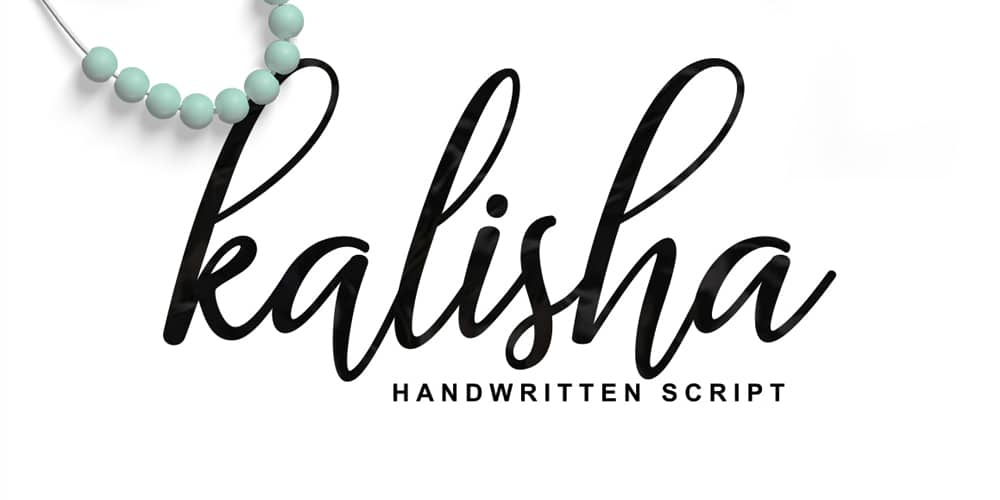
Perfect for adding some romance and charm to your designs. This script functions most strongly as a display or headline font. suitable for logo, logotype, branding, fashion, label, book cover, t-shirt, instagram post, and other!
4. Shavia
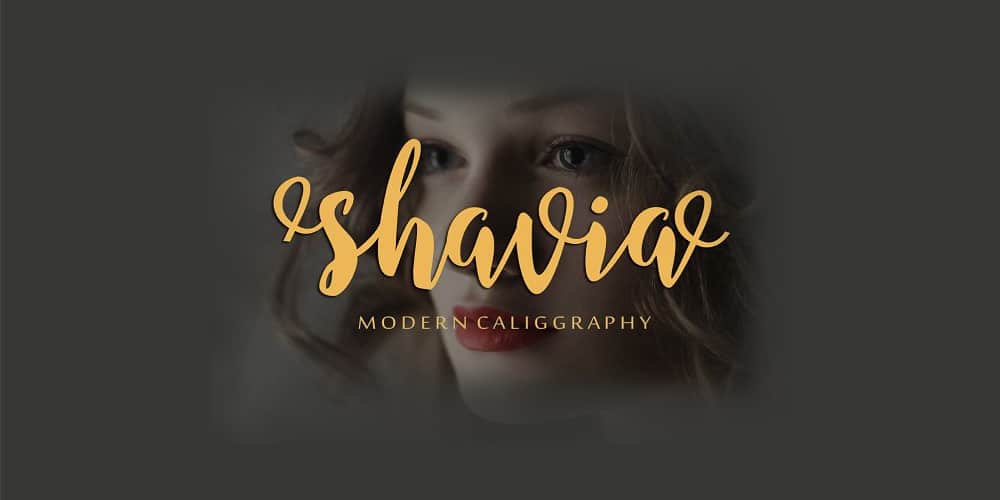
Shavia is a modern calligraphy, organic, dynamic and energetic sytle.Can used for various purposes. It works perfect in the world of weddings, logos, greeting cards, branding, print ads, quotes, signage, magazines etc.
5. Kadisoka
6. Railey
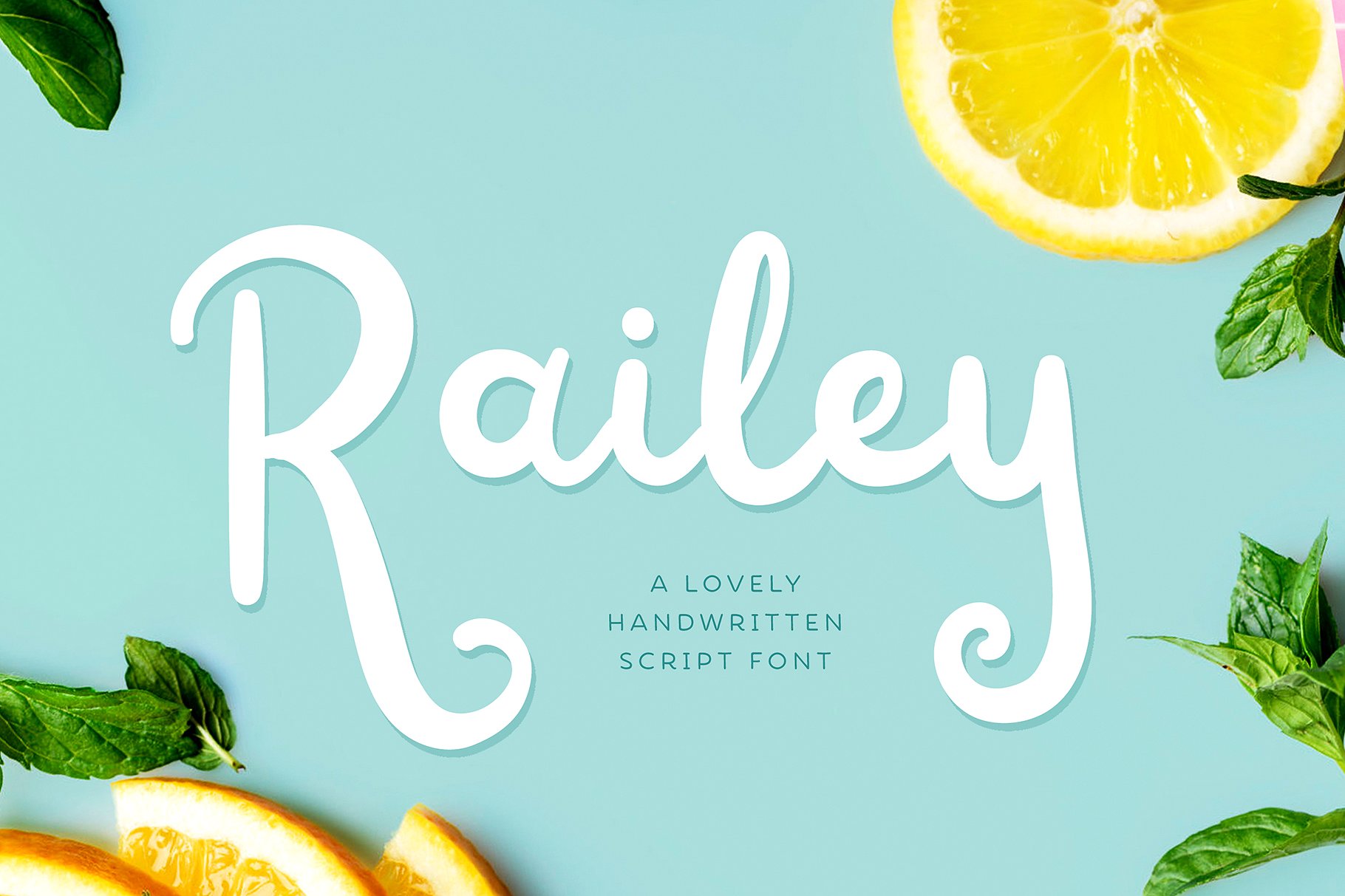
Railey is a lovely, modern handwritten font, perfect for any design & craft projects! Ideal for quotes, home decor, wedding invites, blog header, branding, t-shirts, posters & etc!
7. Monopola
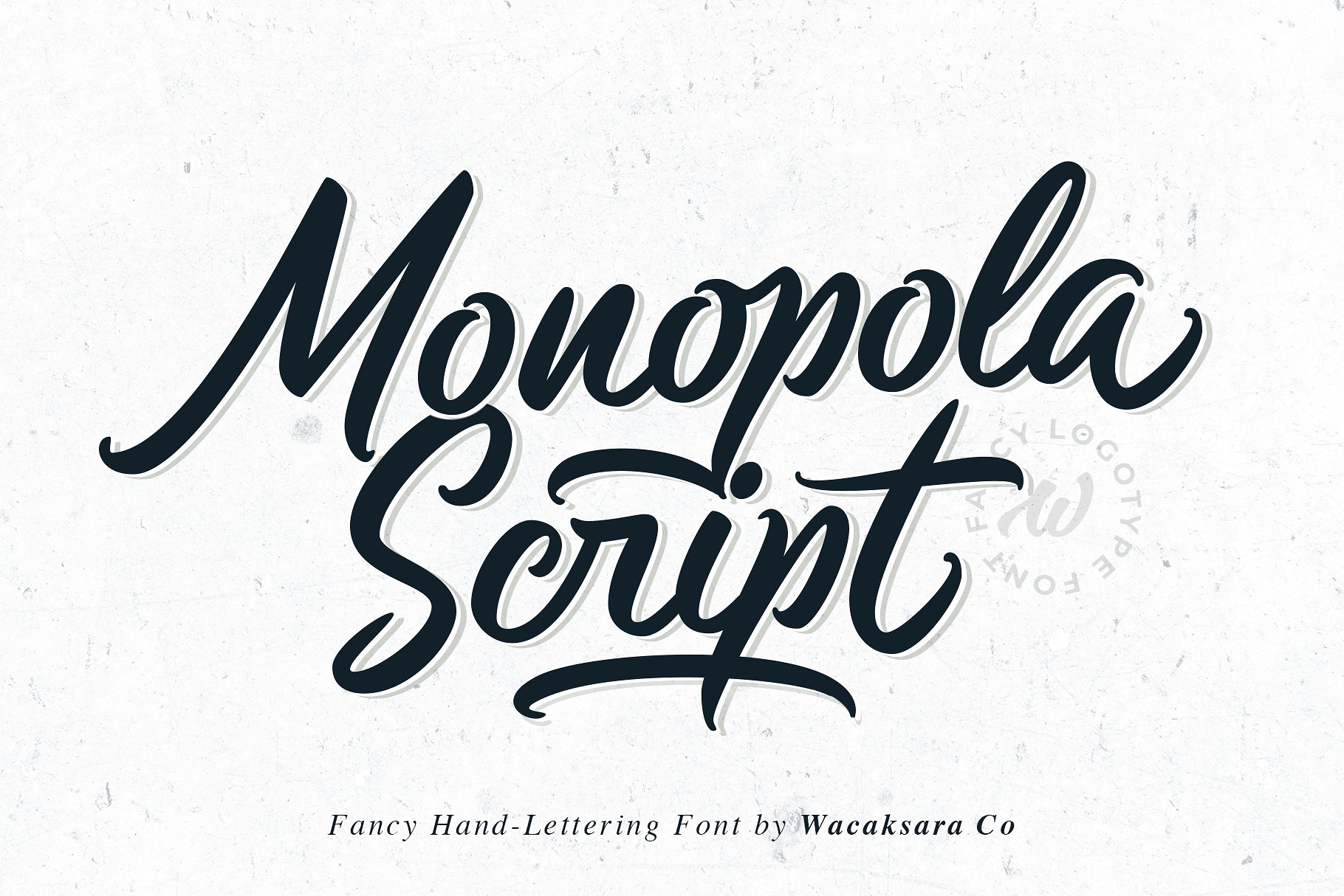
Monopola comes with uppercase, lowercase, numerals, punctuations and so many variations on each character include OpenType alternates, and common ligatures to let you customize your designs.
8. Habital
This font is ideal for branding and decorate your any project, are perfect for wedding invitation or your blog. Also with their help, you can create a logo or beautiful frame for your home. Or just use for your small business, book covers, stationery, marketing, magazines and more. Special for you I prepared a lot alternates and ligatures.
9. Chietah
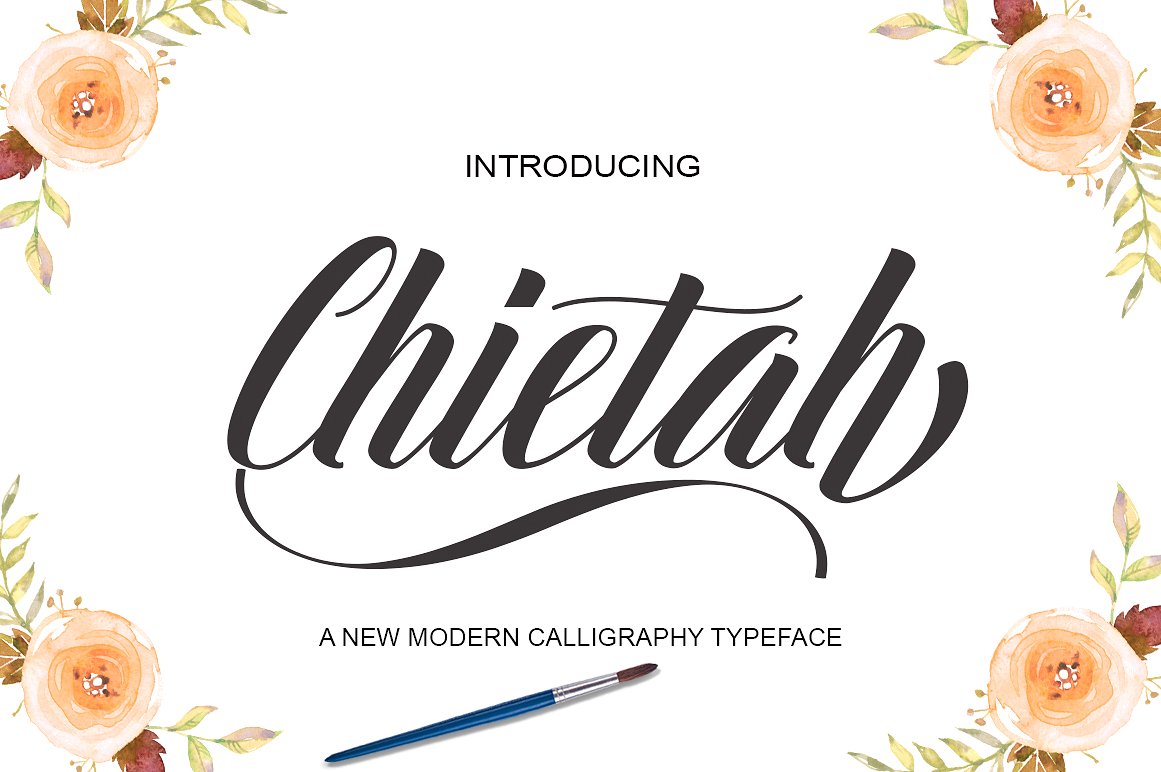
Chietah Script is a stylish calligraphy font that features a varying baseline, smooth line, classic and elegant touch. Can be used for various purposes.such as headings, signature, logos, wedding invitation, t-shirt, letterhead, signage, lable, news, posters, badges etc.
Chietah Script features 404 glyphs. including initial and terminal letters, alternates, ligatures and multiple language support.
10. Risthi
Risthi Script is handwritten stylish copperplate calligraphy fonts, combines from copperplate to contemporary typeface with a dancing baseline, classic and elegant touch. Can be used for various purposes.such as headings, signature, logos, wedding invitation, t-shirt, letterhead, signage, lable, news, posters, badges etc.
11. Briberra
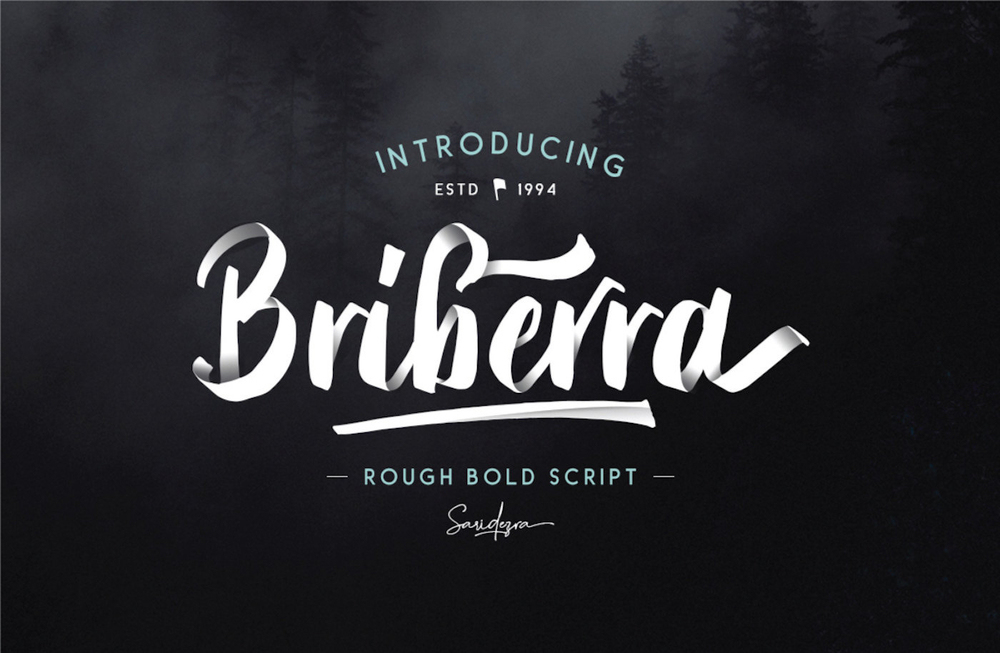
Briberra is hand lettering script font that contains stylistic alternates & swashes that will help to create your own customized designs. You can use this font for quotes, t-shirt designs, branding, plus plenty of other projects. This font contains multi lingual characters, supports PUA and is available in OTF and TTF formats.
12. Tahu
Introducing you to a clean and professional modern script font, Tahu! Use it for ads, logos, branding or anything that that you’ll need. This is free for commercial use so feel free to use it to prosper 🙂
13. Karl Geoff
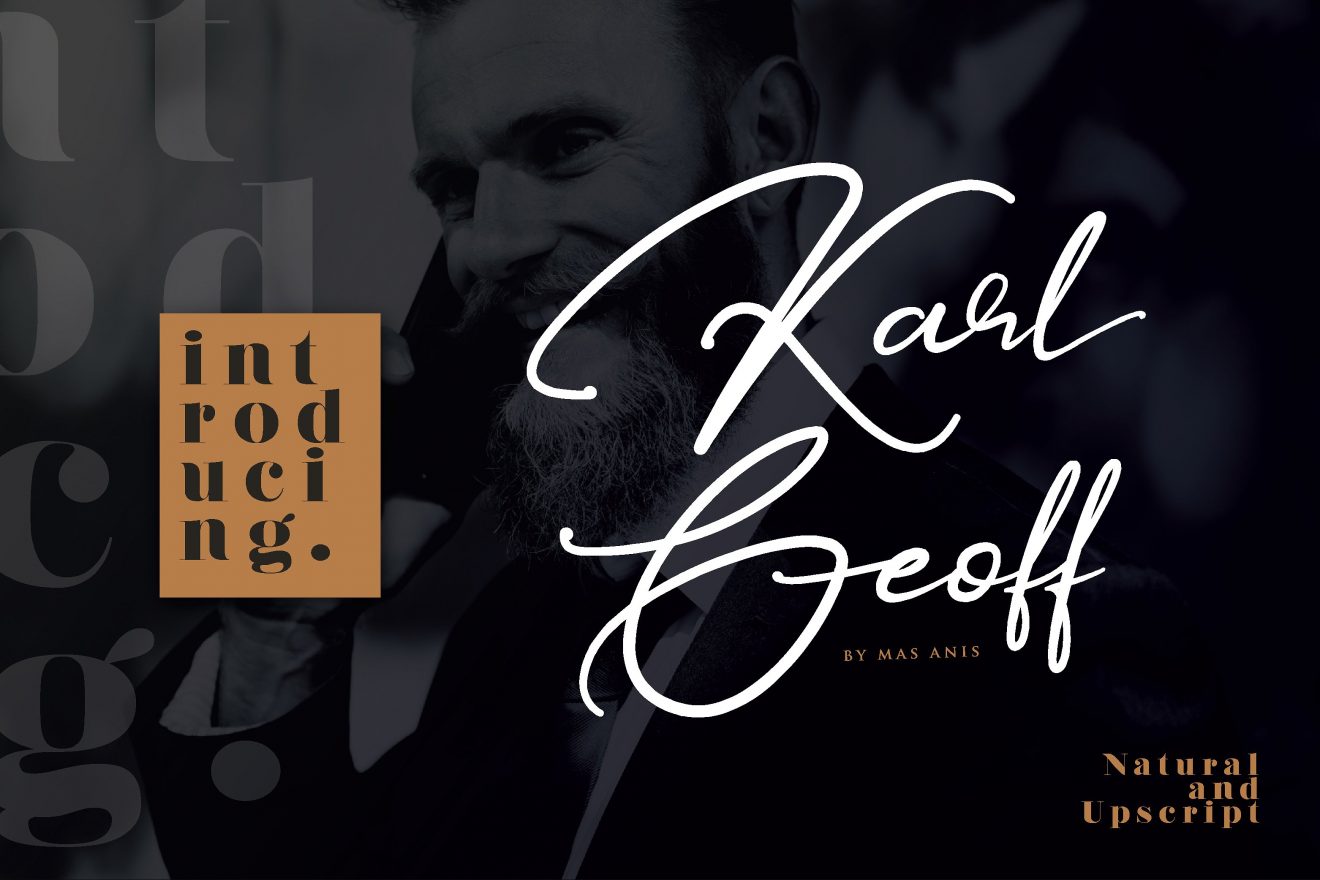
Karl Geoff is a unique and cool looking handwritten script, ideal for use in projects that need an organic and natural style. This font is great for logotype, signatures, labels, and can add an elegant and classy look to your work.
14. Hey Darling
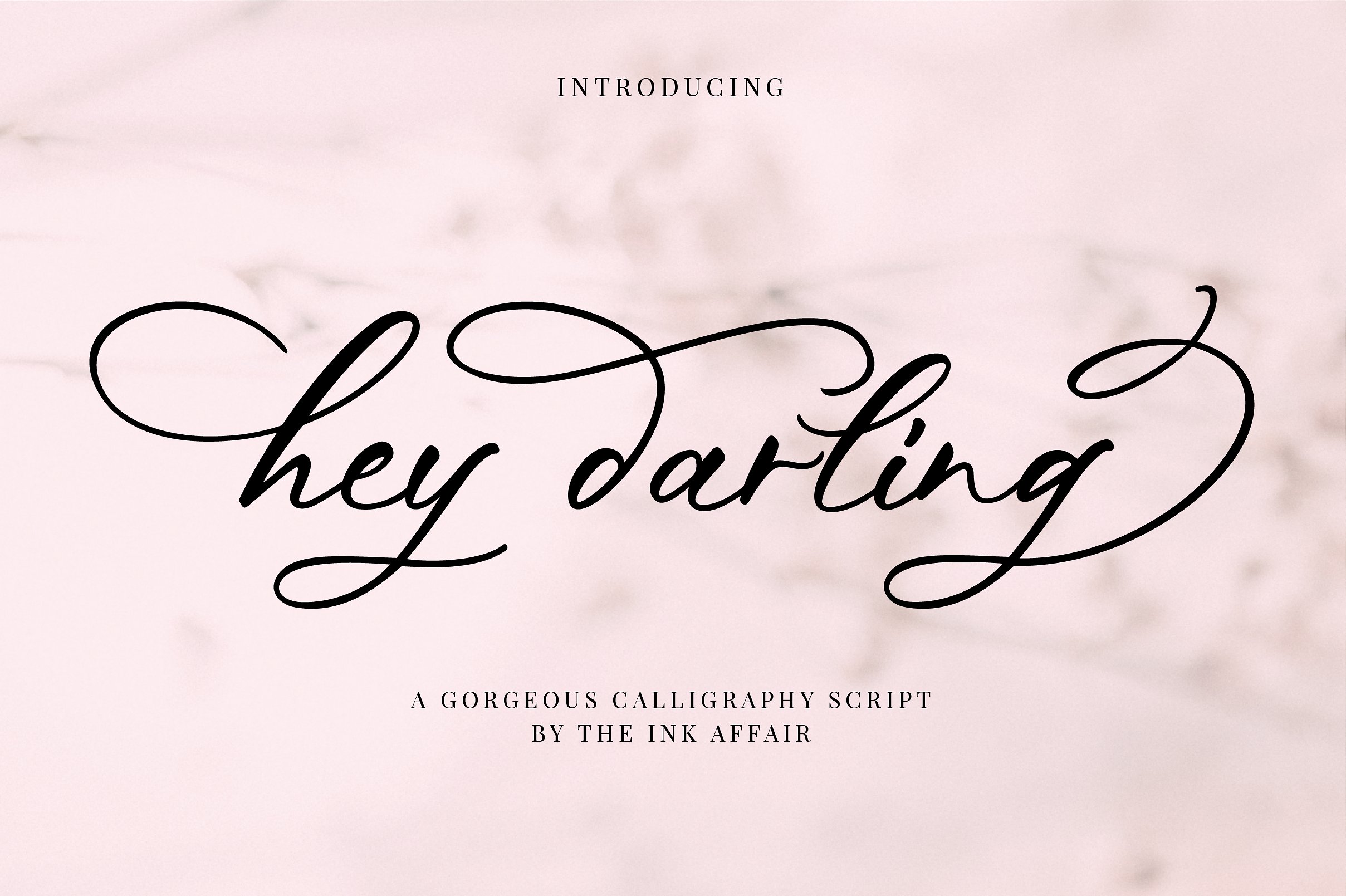
Hey Darling includes a full set of gorgeous uppercase and lowercase letters, numbers, punctuations and international support. It also includes 2 sets of lowercase letters with beginning and ending flourishes to add style to your designs.
15. Striped King
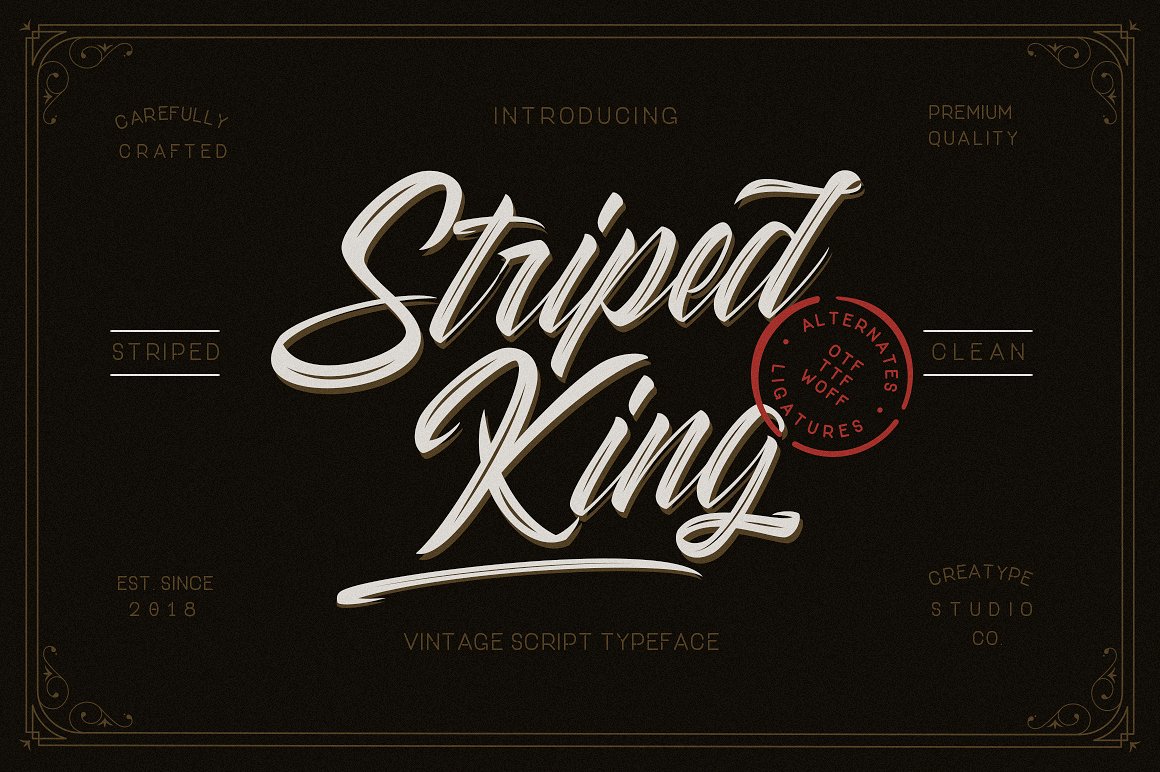
Striped King is perfect for branding projects, logo, wedding designs, social media posts, advertisements, product packaging, product designs, label, photography, watermark, invitation, stationery and any projects that need handwriting taste.
16. Vantom
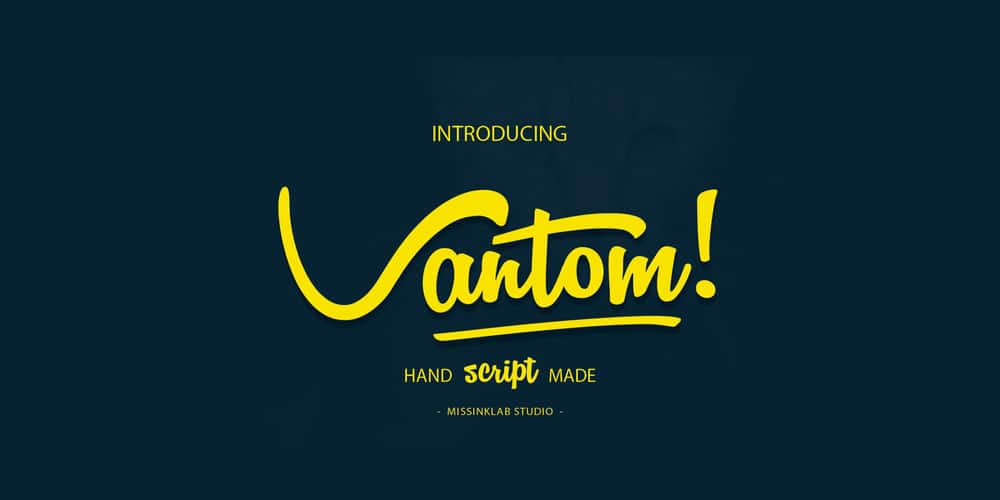
Vantom comes with uppercase, lowercase, numerals, punctuations and so many variations on each characters and also additional swash to let you customise your designs. Perfect to use for Logotype, Letterhead, Poster, Apparel Design, Label and etc.
17. Anthares
18. Smooth Stone
Smooth Stone is a free handwritten font. It has a smooth edge and it’s very tall in comparison with other handwritten fonts. Smooth Stone comes with upper and lowercase basic characters, numerals, punctuations and some special ligatures. The font can be used both for personal and commercial use.
19. Blacksmith
Blacksmith script is a new and fresh font script that comes with a vintage and neat style. so this font can be used easily, even in mix and match with other fonts. so it can provide new alternatives and sensations for designers or craftsmen, in working on various projects.
24. Knight
Inspired by the vintage era when sign painting was take as very important part for creating storefrontsignboard, branding and promotional ads on the street, Knight Brush was made to resembles the brush painting looks natural.
25. Martens
Inspired by the new modern vintage style, with script and sans serif combination. Come with a fresh lowercase, uppercase, numerals, ligatures, stylistic alternate, multilingual, etc.